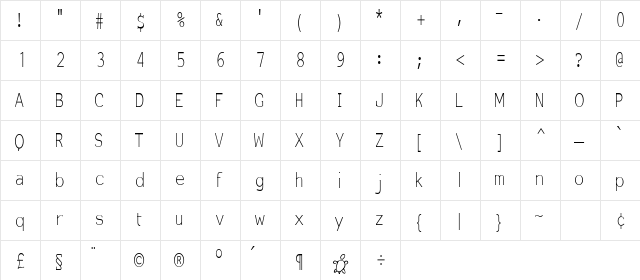
EinzigSans Regular
Design Context for EinzigSans Typeface
EinzigSans takes a measured approach to typography — its balanced proportions and neutral character make it a reliable workhorse for both digital and print work.